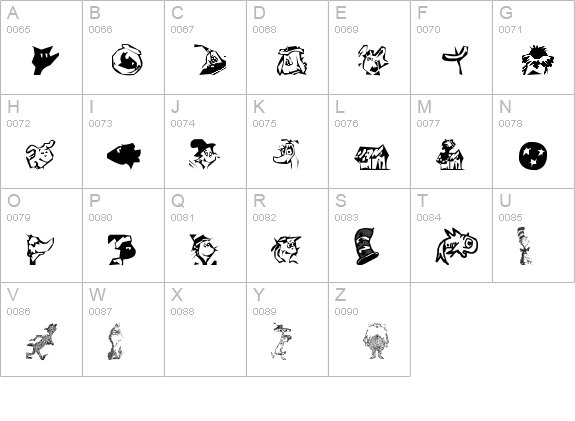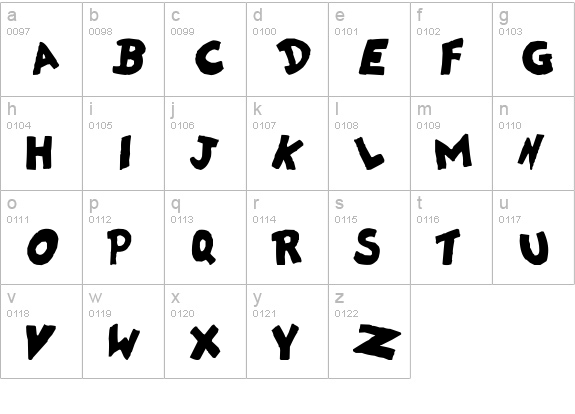
Dr Seuss Font Details
The Dr Seuss font is a whimsical and playful typeface inspired by the iconic illustrations found in Dr. Seuss books. With its quirky curves and unique character designs, this font captures the essence of Dr. Seuss's imaginative world. Each letter is carefully crafted to bring joy and creativity to your projects, making it perfect for children's books, invitations, posters, and more. The best part? This delightful Dr Seuss font is available for free download at FontsMarket.com! Just head over to the website and get this fun and charming typeface to add a touch of Seussian magic to your designs. Let your creativity run wild with the Dr Seuss font and watch your projects come to life with a splash of color and whimsy.